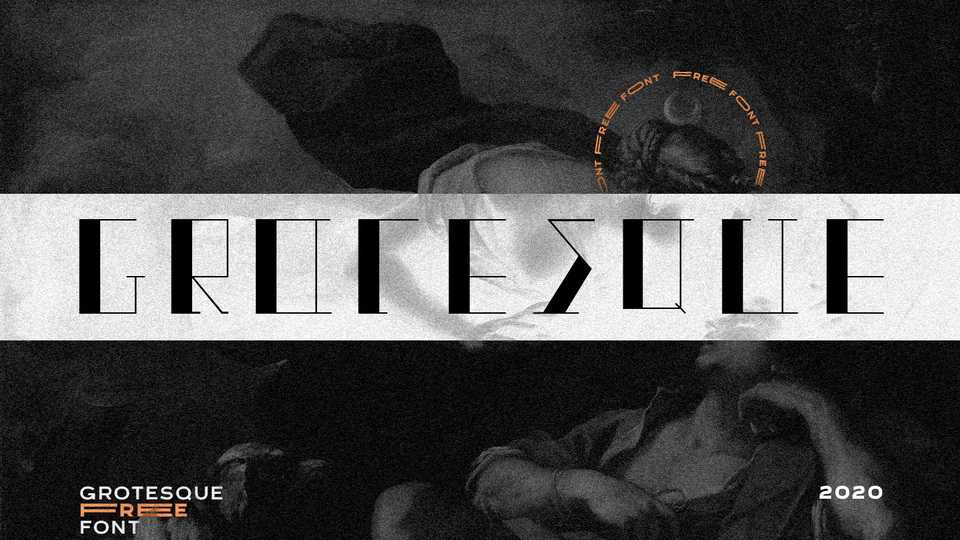
Download Grotesque font, an Oldschool styled display typeface with a mix of thin and bold lines inside the letters. High contrast and straight lines make Grotesque font perfect for logos, posters, headlines and other display use.
Designer: Luis H. J. Rapp